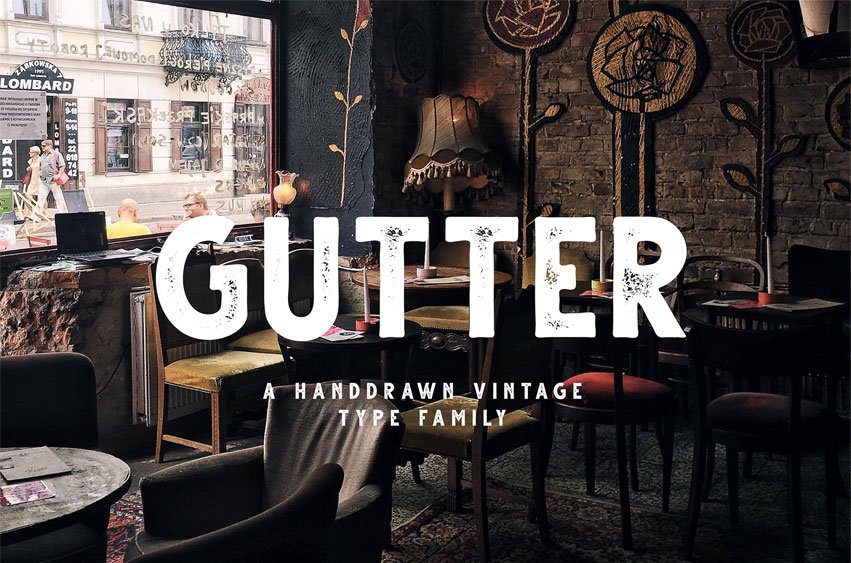
Gutter Rust Font is a Handdrawn sans serif typeface, they have rough and vintage character. Gutter comes with style regular and italic. Perfect for logos, typography design and any Display Type needs.